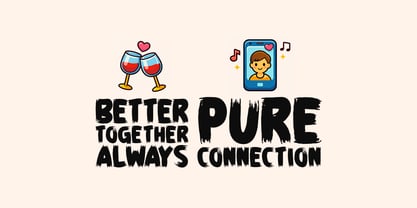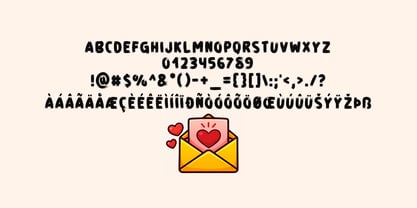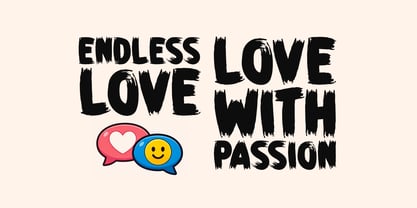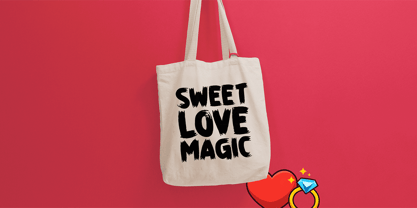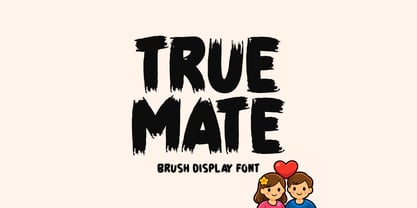
True Mate
by Seemly Fonts
The True Mate Font Family was designed by Md. Sohail Bhuiyan and published by Seemly Fonts. True Mate contains 1 styles. More about this family
True Mate is a bold brush display font designed to express strong emotions, real connections, and authentic personality. Its rough edges and hand-painted strokes create a powerful, energetic presence that instantly grabs attention. Perfect for love themes, branding, posters, social media graphics, merchandise, and expressive typography designs. True Mate brings raw charm, warmth, and confidence into every word — making your message feel personal, bold, and unforgettable.